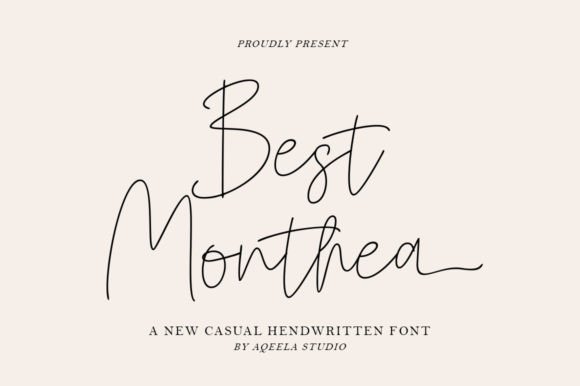
Best Monthea Font: Elevate Your Designs with a Stylish Signature Font
In the world of typography, a signature font can make all the difference in creating a lasting impression. If you’re looking for a font that exudes elegance, sophistication, and a touch of natural flair, look no further than the Best Monthea Font. This stunning font is designed to add a personal touch to your designs, making it perfect for a wide range of projects.
What is Best Monthea Font?
Best Monthea is a signature font with a natural and stylish flow. Its unique design makes it an excellent choice for various creative projects, from logos and branding to social media posts and product packaging. The font’s flowing lines and curves create a sense of movement, adding a dynamic touch to your designs.
What Can I Use Best Monthea Font For?
The versatility of Best Monthea Font makes it suitable for a multitude of applications. Here are some ideas to get you started:
- Logos & Branding: Create a memorable brand identity with a custom logo that showcases your unique style.
- Invitations: Design beautiful invitations for special occasions, such as weddings, birthdays, or baby showers.
- Stationery: Elevate your business or personal stationery with a touch of elegance.
- Wedding Designs: Make your wedding stationery, decor, or social media posts truly unforgettable.
- Social Media Posts: Add a professional touch to your social media content and stand out from the crowd.
- Advertisements: Create eye-catching ads that capture the attention of your target audience.
- Product Packaging: Make your products stand out on store shelves with custom packaging designs.
- Product Designs: Add a personal touch to your product designs, such as labels, tags, or instruction manuals.
- Labels: Design custom labels for your products, files, or folders.
- Photography: Add a watermark to your photos or create stunning photo captions.
- Special Events: Create custom designs for events, such as conferences, festivals, or charity events.
Why Choose Best Monthea Font?
So, what sets Best Monthea Font apart from other fonts? Here are some benefits you can expect:
- Unique Style: Best Monthea Font boasts a distinctive design that will set your projects apart from the rest.
- Elegant and Sophisticated: The font’s flowing lines and curves create a sense of elegance and sophistication.
- Natural Flow: The font’s natural flow makes it easy to read and understand.
- Versatile: Best Monthea Font is suitable for a wide range of projects and applications.
Tips for Using Best Monthea Font
To get the most out of Best Monthea Font, here are some tips to keep in mind:
- Pair with Other Fonts: Experiment with pairing Best Monthea Font with other fonts to create a unique and visually appealing design.
- Adjust Font Size: Adjust the font size to create visual hierarchy and emphasize important information.
- Use Colors Wisely: Choose colors that complement the font and enhance the overall design.
- Keep it Simple: Don’t overcomplicate your design – keep it simple and elegant.
In conclusion, Best Monthea Font is an exceptional signature font that can elevate your designs to the next level. Its unique style, elegant and sophisticated design, and natural flow make it perfect for a wide range of projects. Whether you’re a designer, entrepreneur, or simply someone looking to add a personal touch to your creations, Best Monthea Font is an excellent choice.